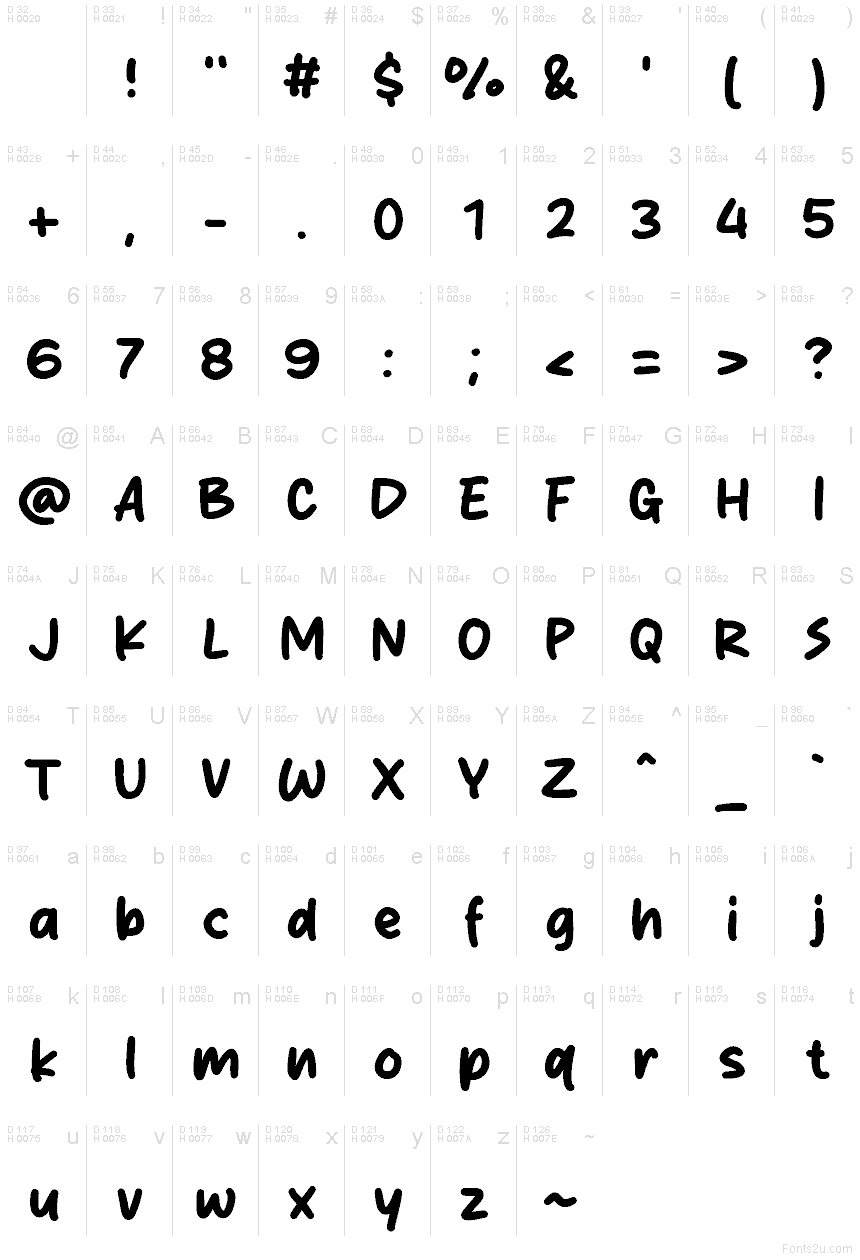
Boiled Soup
Boiled Soup font by MJType is a free handwritten font that captures an energetic and casual vibe with its informal design. This modern typeface exudes a hand-drawn aesthetic, giving each letter a distinct personality and charm.
Operational in design aesthetics, Boiled Soup works well in posters, book covers, packaging designs, branding projects, social media content, advertisements, flyers, invitations, greeting cards and more.